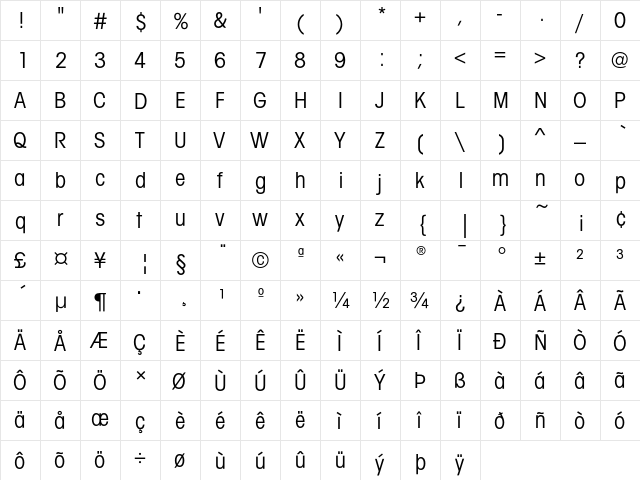
AvantGardEF BookCond
Design Context for AvantGardEF Typeface
AvantGardEF offers clean, dependable letterforms without strong stylistic allegiance, making it a practical choice for designers who need flexibility. The condensed width makes it efficient for tight spaces without sacrificing legibility.
Pro Tip: Use AvantGardEF in both headline and body roles to test its range before committing to a single application.